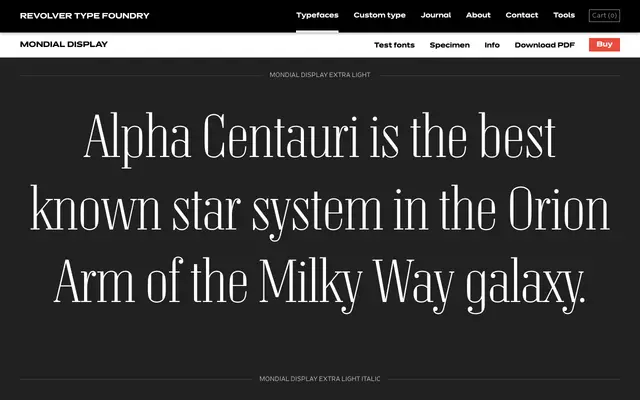
Mondial Display
A display sans-serif from Revolver Type Foundry spanning five weights, each with a matching italic, suited to headline and editorial use.
Five weights from Extra Light to Bold, each paired with an italic, give the family enough range for varied typographic hierarchies at display sizes. The naming convention positions it as a companion or standalone display cut within Revolver's broader Mondial family. Clean and professionally executed, though the page offers limited detail on its specific design history or distinguishing characteristics.
Marketed explicitly as a display typeface with a name suffix confirming its intended use; the weight range and italic variants suggest a refined, large-scale sans intended for headlines and editorial contexts.